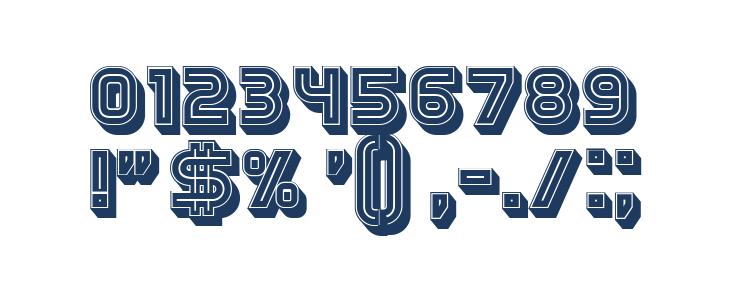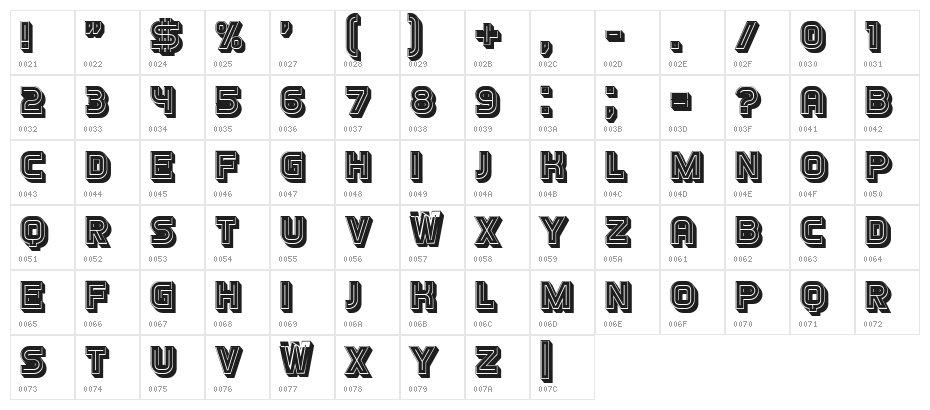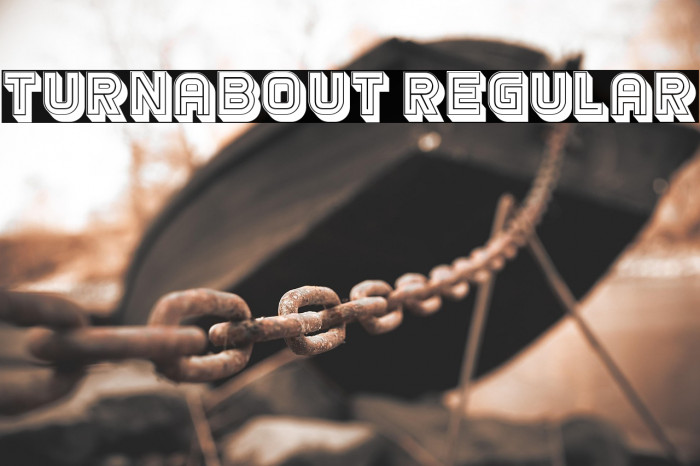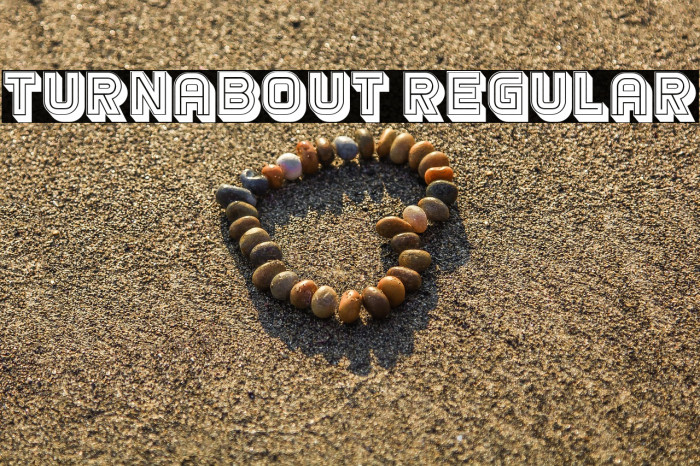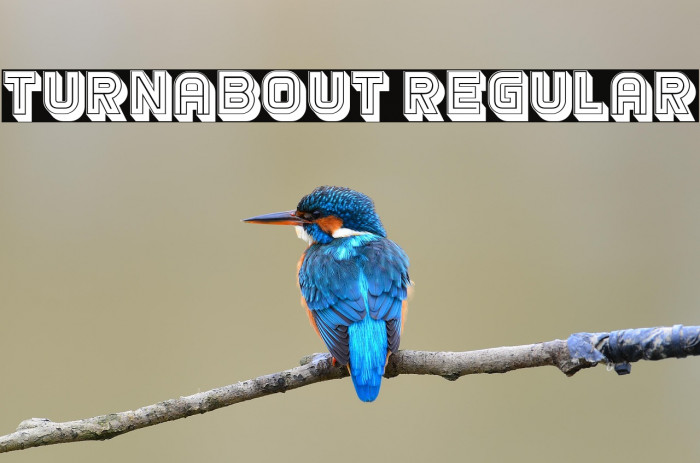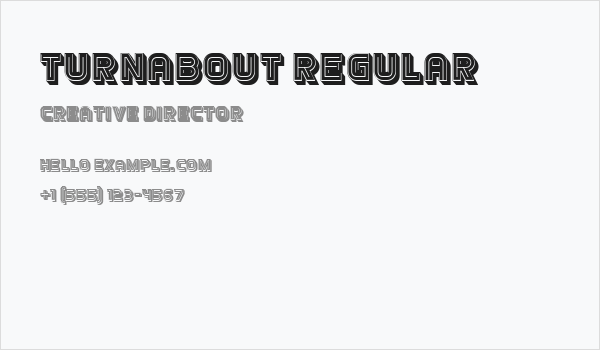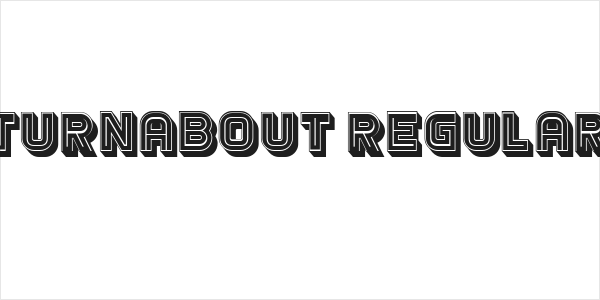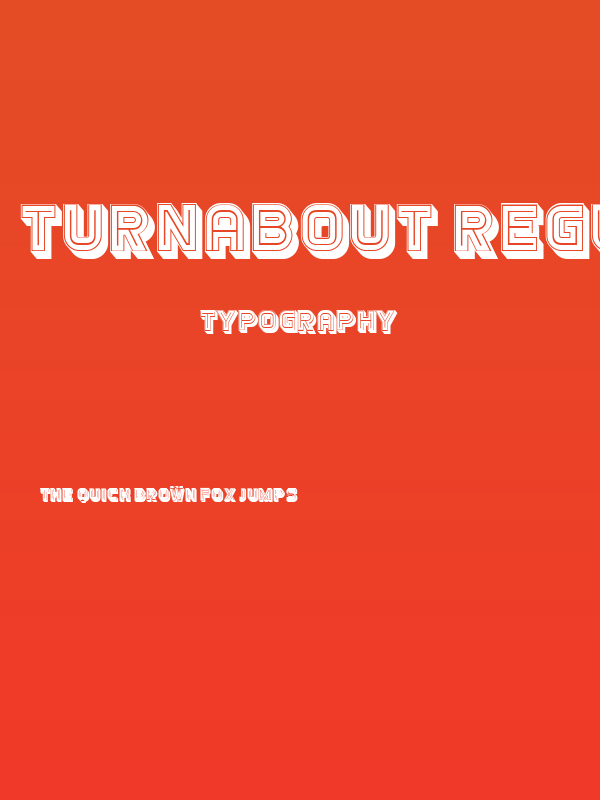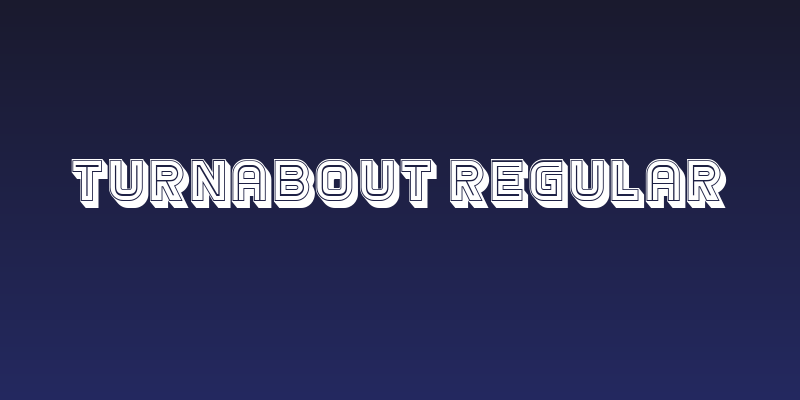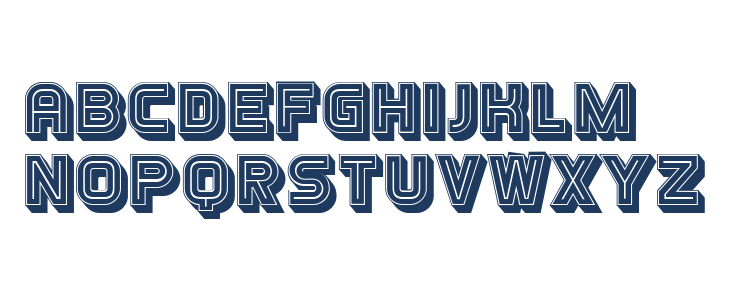
Turnabout Regular Font
Turnabout Regular Description
This font features a bold, three-dimensional appearance with a strong geometric influence. The characters are outlined with a thick black border, creating a striking contrast against the white interior. The design is highly decorative, with a modern twist on classic block lettering. Each letter and number is meticulously crafted to maintain uniformity and balance, making it ideal for eye-catching displays. The special characters are equally bold and maintain the same stylistic elements, ensuring consistency across all glyphs.
| Proposed Projects | Ideal for posters, signage, branding, and any project requiring a bold, attention-grabbing typeface. |